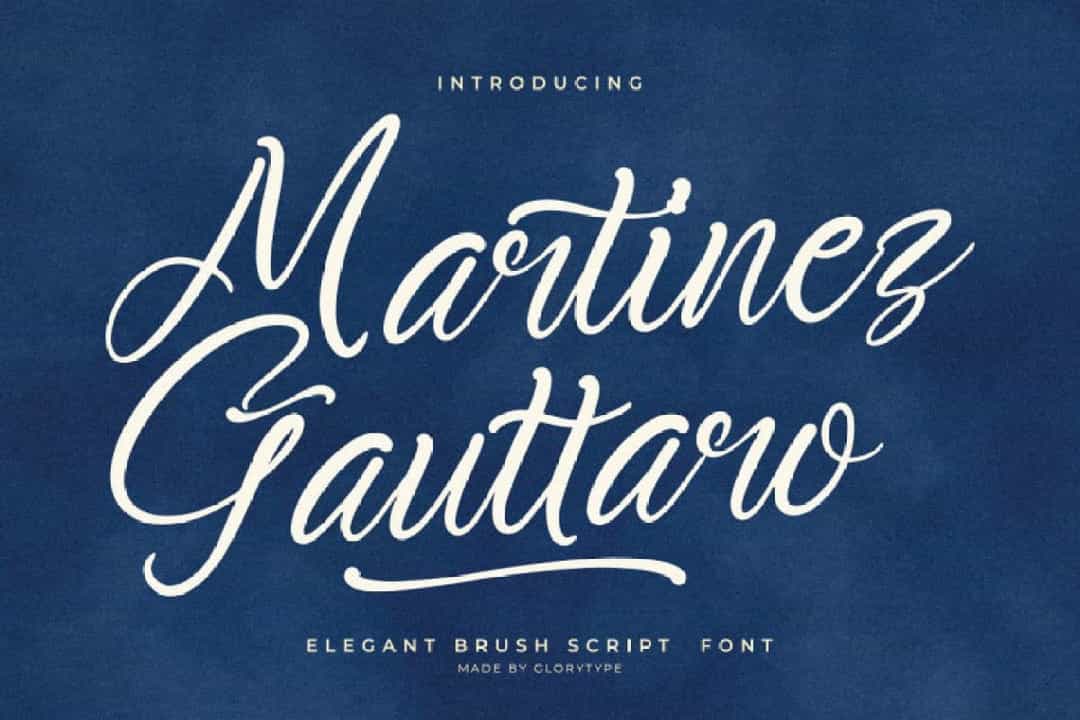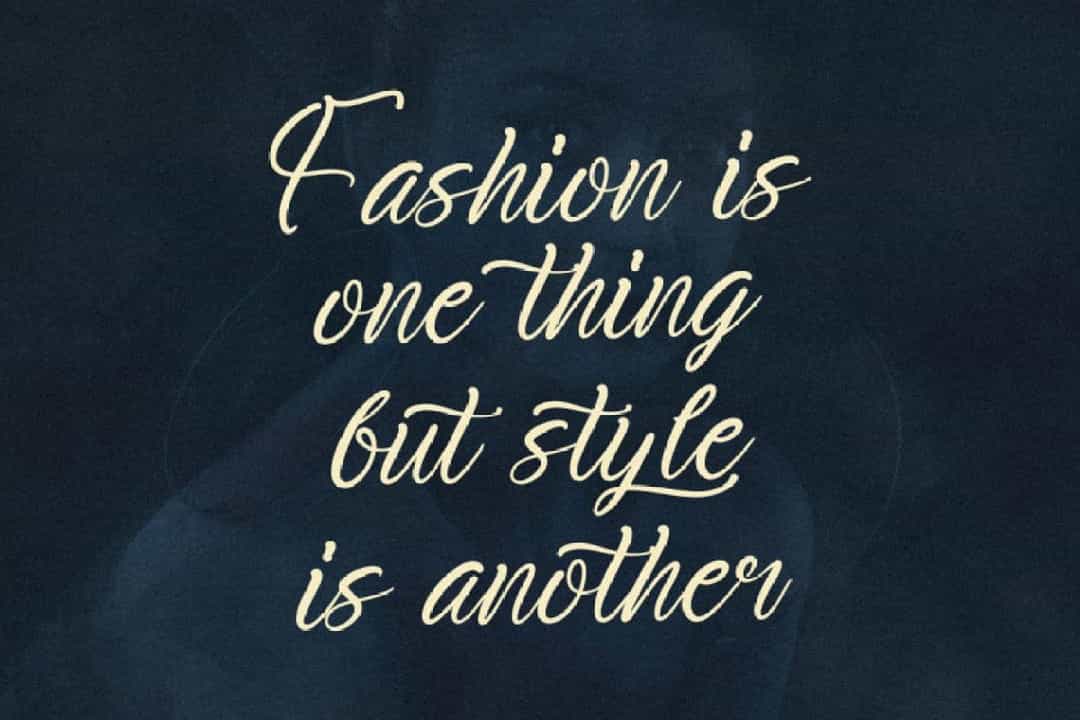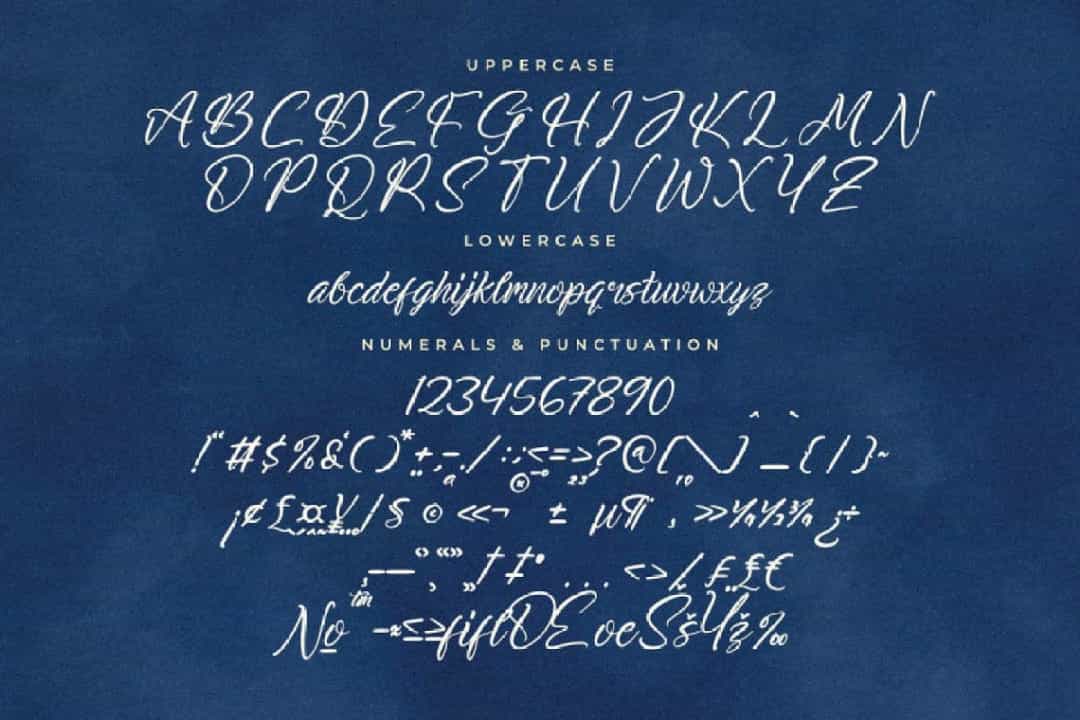
Martinez Gauttaro – Elegant Brush Script Font that is ideal for many projects like branding, logos design, homeware packaging design, mugs with quotes for shopping bags with quotes printed directly on them; posters, books, t-shirts, invitation cards, greeting cards, name card, name card greeting, cards labels plus, photography, watermarks, special events or any other job requiring exquisite script taste.